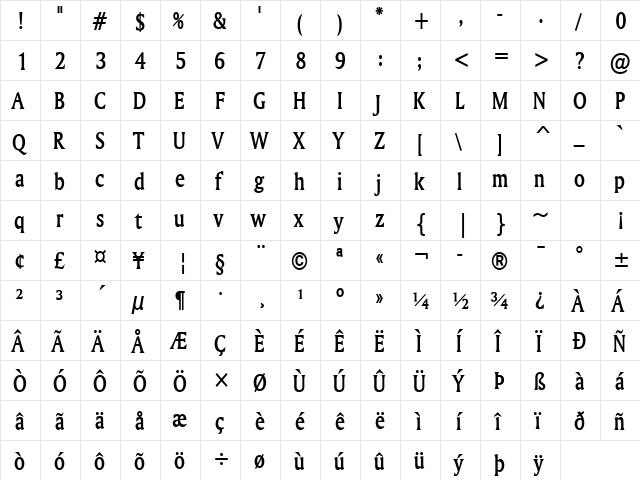
Ameretto Condensed Bold
Design Context for Ameretto Condensed Typeface
Ameretto Condensed is a composed and adaptable typeface that performs quietly and consistently across a wide range of design contexts. Its bold stroke weight gives it real presence on the page. Its narrow stance lets it pack a punch even in space-constrained designs.